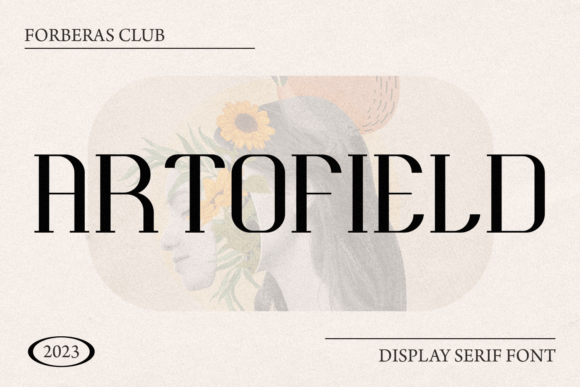
Embrace the timeless beauty of Artofield, the serif font family crafted with elegance and charm, exclusively designed by the renowned Forberas Club. Step into a world of classic aesthetics and modern functionality as Artofield transforms your creative visions into tangible masterpieces.
Indulge in the exquisite curves and delicate details that bring a touch of sophistication to your designs. Artofield's meticulously crafted glyphs dance across the page, evoking a sense of nostalgia and timeless grace. Let your words flow with the elegance of script, leaving an unforgettable impression on your audience.
Unleash your creativity with Artofield's versatility, a font that seamlessly adapts to a myriad of design projects. From the gentle strokes of wedding labels to the bold statements of branding campaigns, Artofield effortlessly enhances your message. Its timeless appeal blends harmoniously with vintage themes, while its contemporary charm adds a touch of modernity to contemporary designs.
As a designer, you possess the power to evoke emotions, tell stories, and create connections through your art. Artofield becomes your trusted companion in this creative journey, empowering you to craft designs that resonate with your audience. Its timeless beauty transcends trends, ensuring that your work remains relevant and captivating for years to come.
Join the creative revolution and embrace the allure of Artofield, the serif font family that ignites your imagination and propels your designs to new heights. Let your creativity flourish as you embark on a journey of artistic expression, leaving an indelible mark on the world of design.